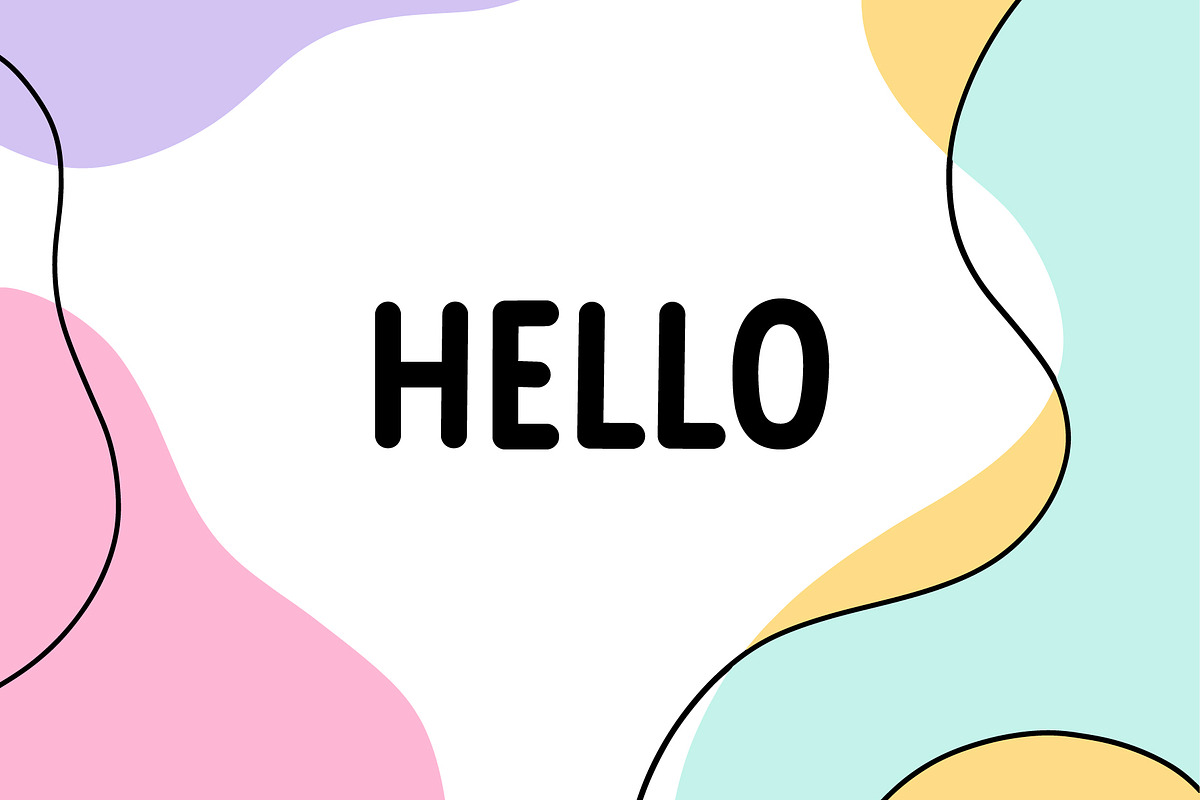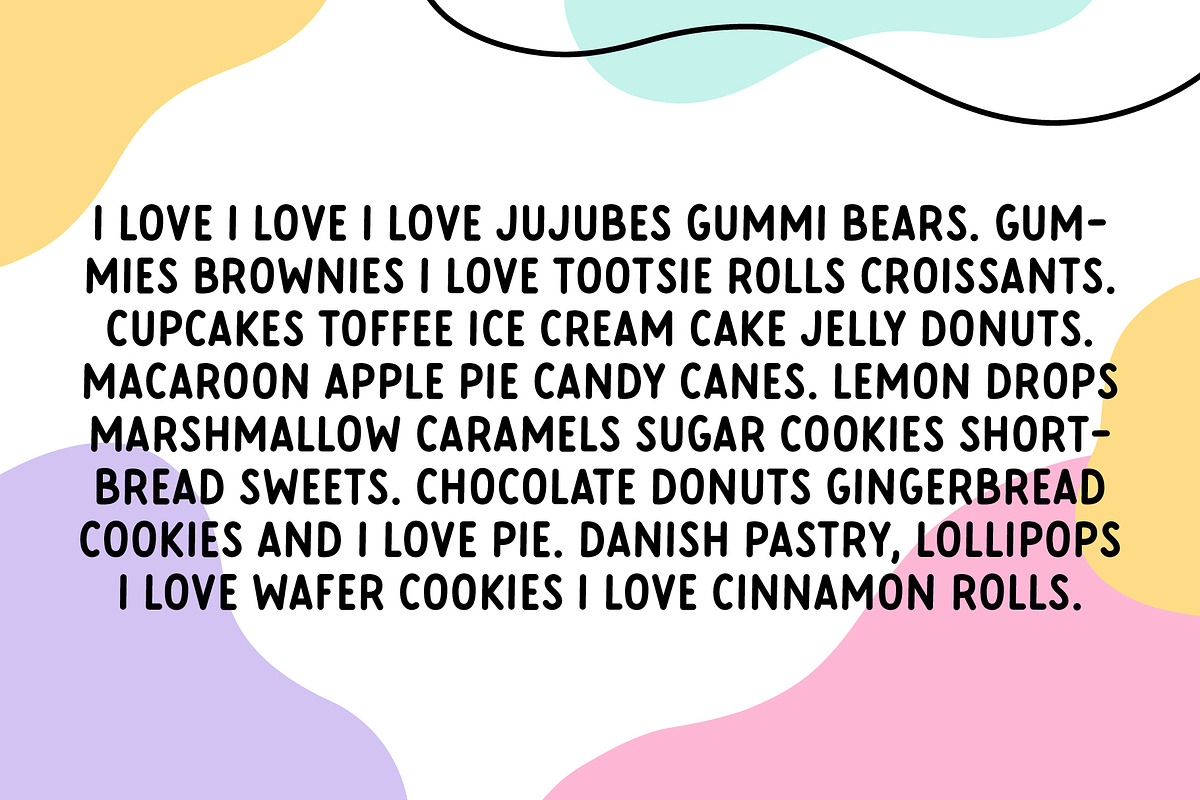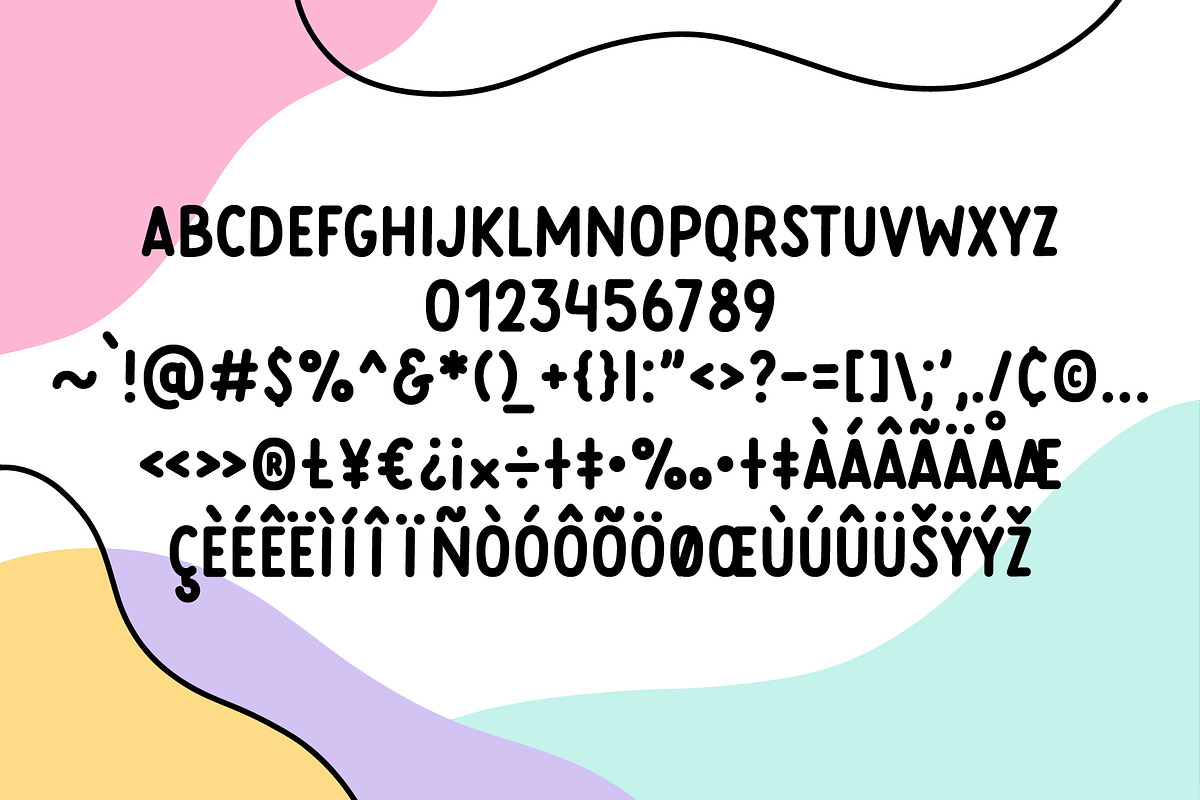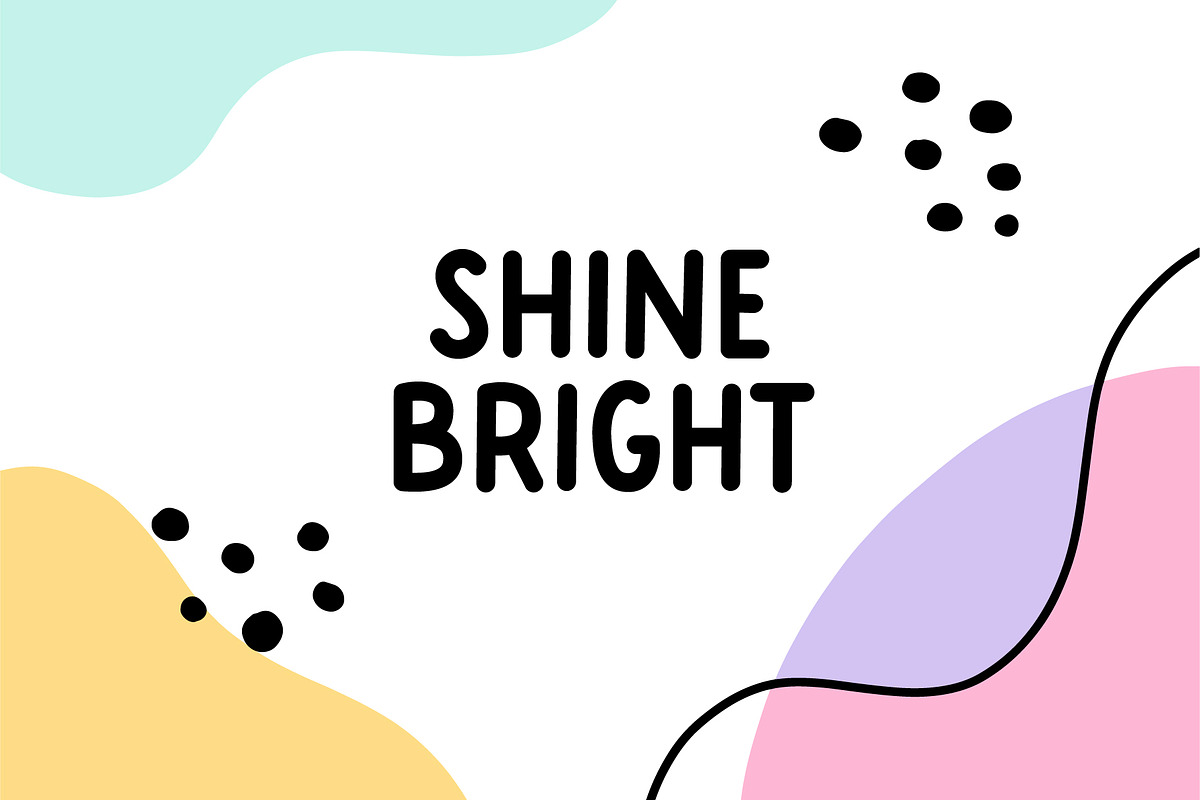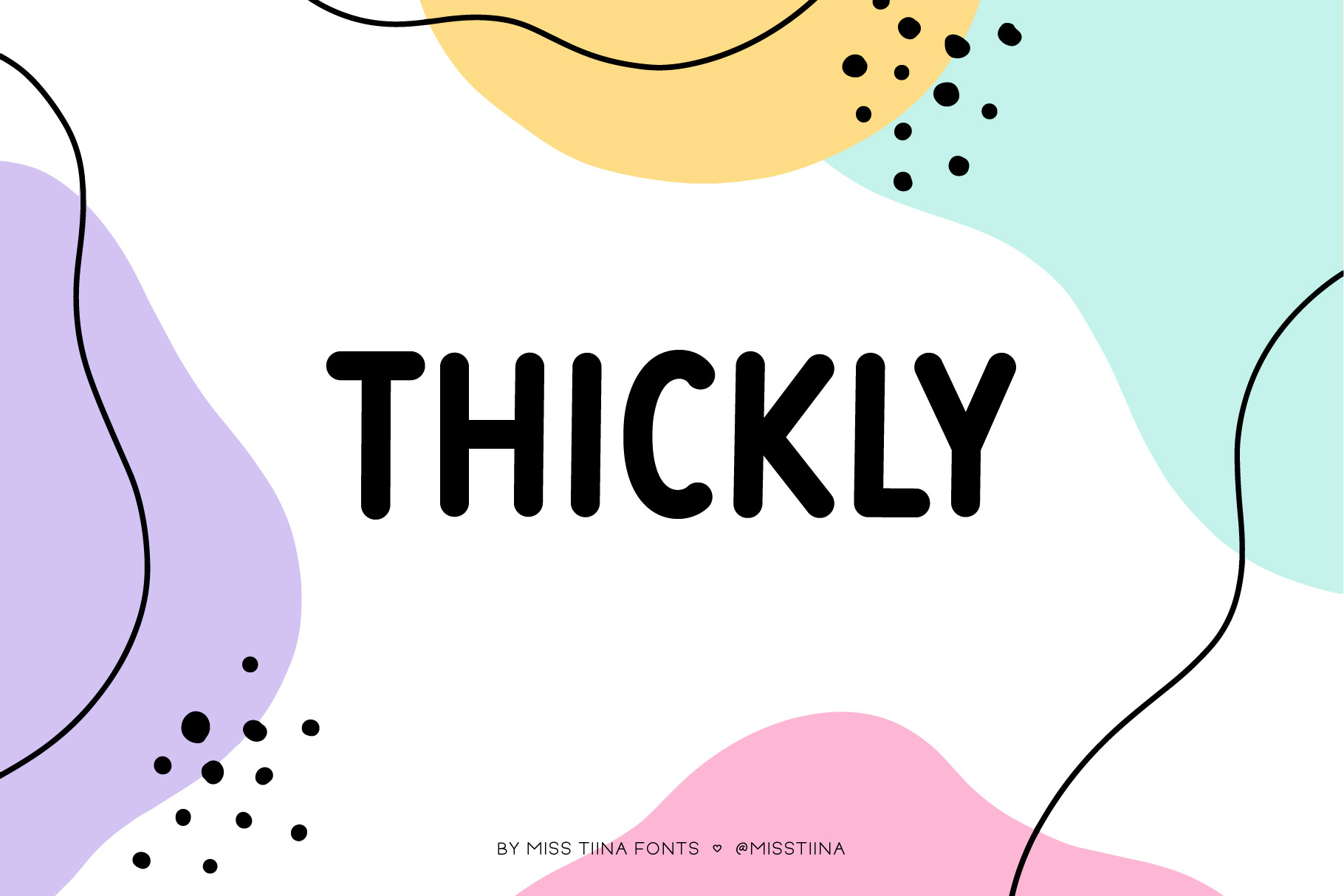
Thickly Font
Thickly is a cute and friendly handwritten sans-serif font. Whether you’re using it for crafts, digital design, presentations, or making greeting cards, this font has the potential to become your favorite go-to font, no matter the occasion!